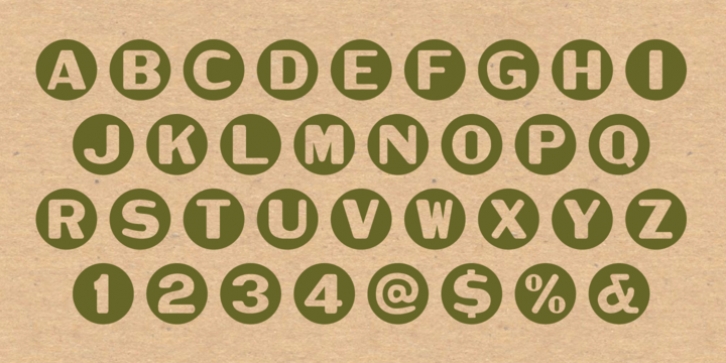
Circle Sans is one of the most unique wood type font designs we"™ve found. It was made in Europe and our cut measures just 3 picas. Letters are a basic, rounded gothic with a medium amount of stroke contrast. This font is easy to read and packs a special punch dropped out from the negative space of a circle.